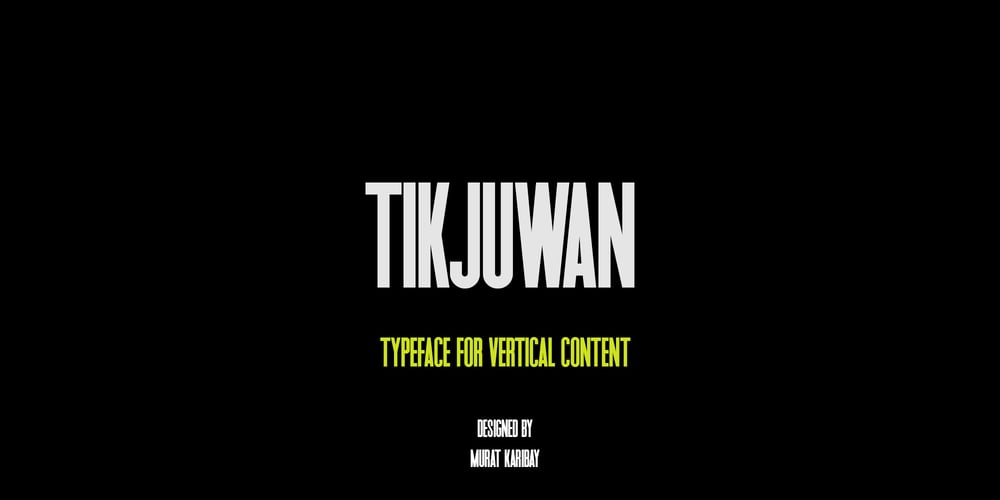
Tikjuwan
Tikjuwan font
Tikjuwan Font Family was designed by Murat Karibay and published by Karibay. Tikjuwan contains 1 styles and family package options. Today, content has become vertical and for vertical content the best option to use will be optimized fonts that will look organic. Tikjuwan font was created for this purpose, so that content makers can fit texts without compression.If you were looking for a font for Reels, Shorts and TikTok videos, Tikjuwan is the best solution.